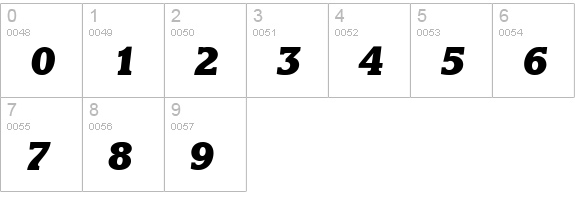
Marbrook Bold Italic Font Details
Marbrook Bold Italic is a strong, high-contrast, italic variant in the Marbrook typeface family \xE2\x80\x94 well suited to headlines, attention-grabbing titles, and strong calls-to-action.
Marbrook Bold Italic font is a striking and versatile typeface that effortlessly combines sophistication with a touch of modernity. With its bold and italic design, this font exudes confidence and adds a unique flair to any design project. The sharp angles and elegant curves of Marbrook Bold Italic create a visually captivating display, making it perfect for headlines, logos, posters, and branding materials. Its strong presence on the page ensures that your message will be noticed and remembered. What sets Marbrook Bold Italic font apart is not just its stunning aesthetics, but also its availability as a free download at FontsMarket.com. This means that designers, creatives, and enthusiasts alike can enjoy the beauty and versatility of this font without any cost. Downloading Marbrook Bold Italic from FontsMarket.com is a breeze, allowing you to quickly incorporate this eye-catching typeface into your projects. Whether you're working on a personal or commercial endeavor, this font will elevate your designs and make them stand out from the crowd. Marbrook Bold Italic font is ideal for a wide range of applications, from print to digital, thanks to its legibility and distinct personality. Its bold and italic nature makes it particularly suited for adding emphasis and creating a bold statement within your designs. So, if you're looking for a font that combines elegance, modernity, and a touch of flair, look no further than Marbrook Bold Italic. Download it for free at FontsMarket.com and unlock endless possibilities for your next creative endeavor.